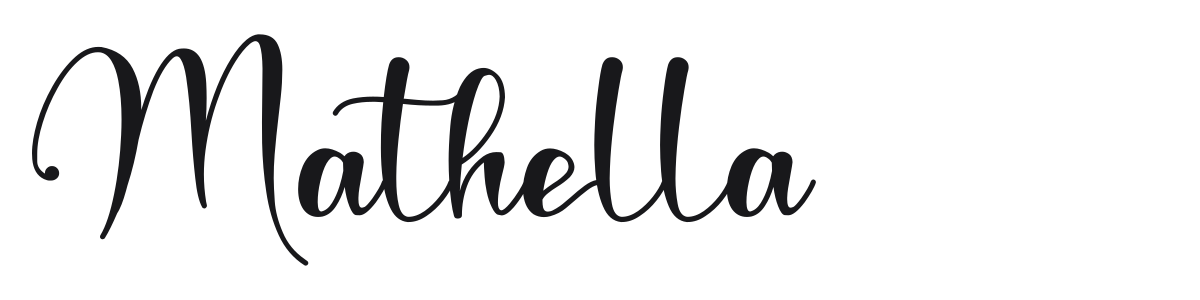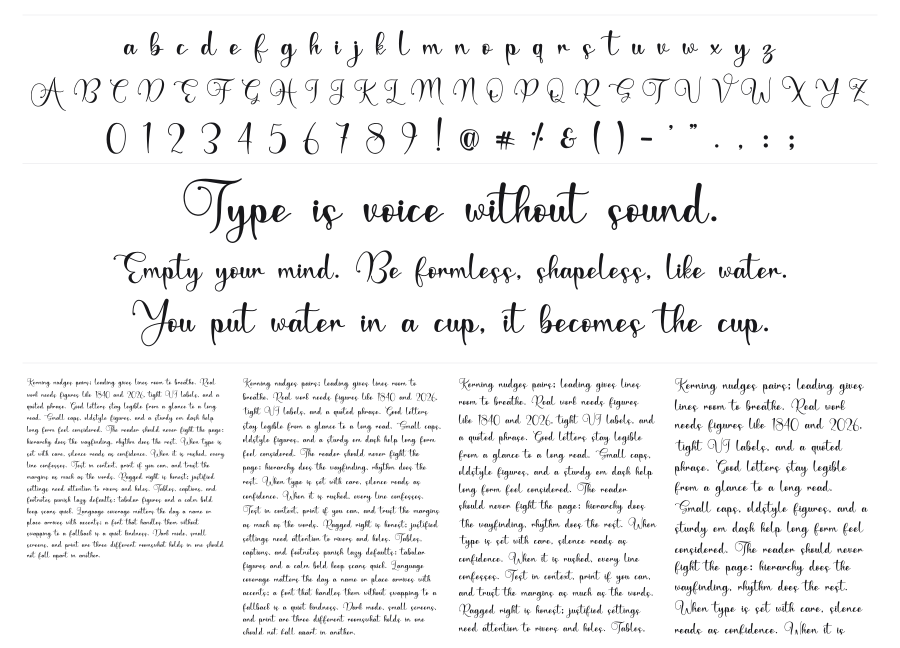
Mathella
Mathella is a flowing modern calligraphy script with high stroke contrast and an energetic, bouncy rhythm. Long looping ascenders and graceful exit strokes give it a handcrafted warmth that sits between formal copperplate and contemporary hand-lettering. It reads naturally at large sizes and works well for branding, packaging, and anything that needs a personal, crafted feel.